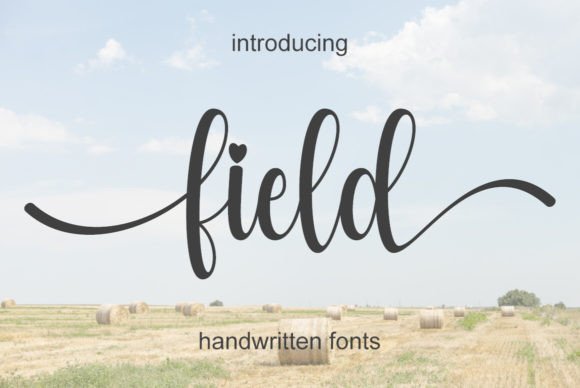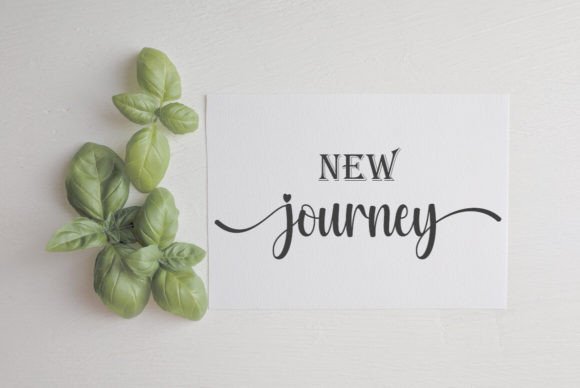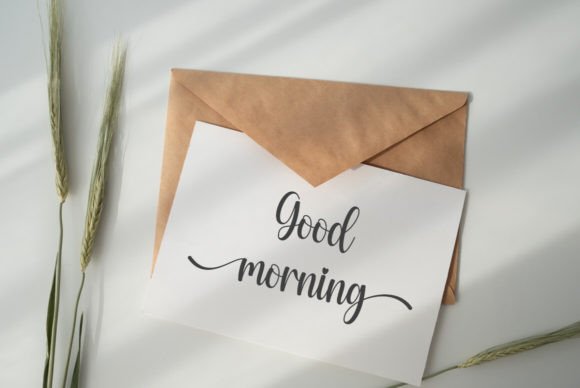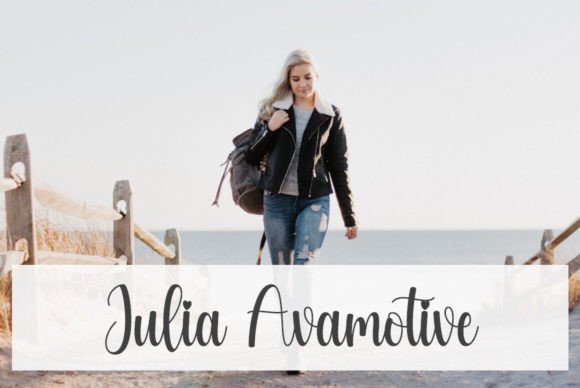
Field Font: Delicate Handwritten Script for Wedding & Logo Design
About the Field Font
Elevate your designs with Field Font, a font that combines sophistication with readability. Field is an elegant and delicate handwritten typeface. This is perfect for your various design needs, such as logos and branding, social media posts, advertisements, business cards, wedding invitation, product design, etc. This font is PUA encoded which means you can access all of the glyphs and alternates with ease!
Field Font’s delicate nature makes it ideal for projects requiring a touch of elegance and sophistication, such as wedding invitations, branding for luxury goods, or high-end product packaging. Its script style excels in short text applications like headlines, logos, and social media graphics. However, avoid using it for large blocks of body text or UI elements; its low x-height and intricate details hinder readability in extended passages.
Pairing Field with a clean sans-serif like Lato or a geometric sans-serif like Montserrat creates a balanced contrast, enhancing its elegance without overwhelming the design. For a more traditional feel, consider pairing it with a subtle serif like Playfair Display. This provides a sophisticated and harmonious visual relationship.
Field Font projects a refined and romantic personality, best suited for brands emphasizing quality, craftsmanship, and timeless style. Its elegant strokes evoke feelings of grace and sophistication.
Field Font Usage Examples
Field Font Example